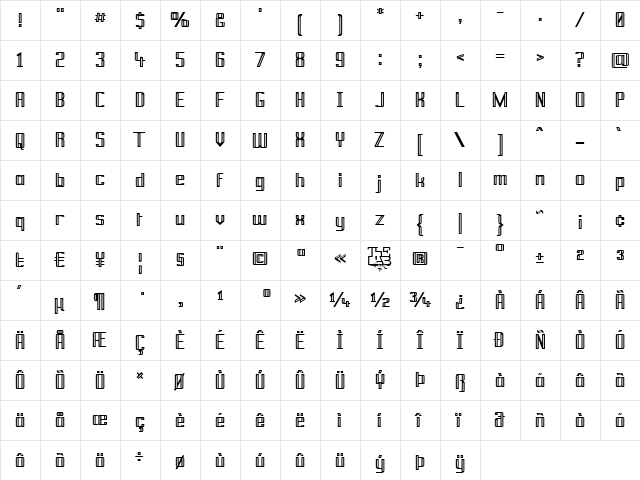
Prussian Brew Regular
| Designer | Graham Meade & Apostrophe |
Design Context for Prussian Brew Typeface
Prussian Brew is a composed and adaptable typeface that performs quietly and consistently across a wide range of design contexts.